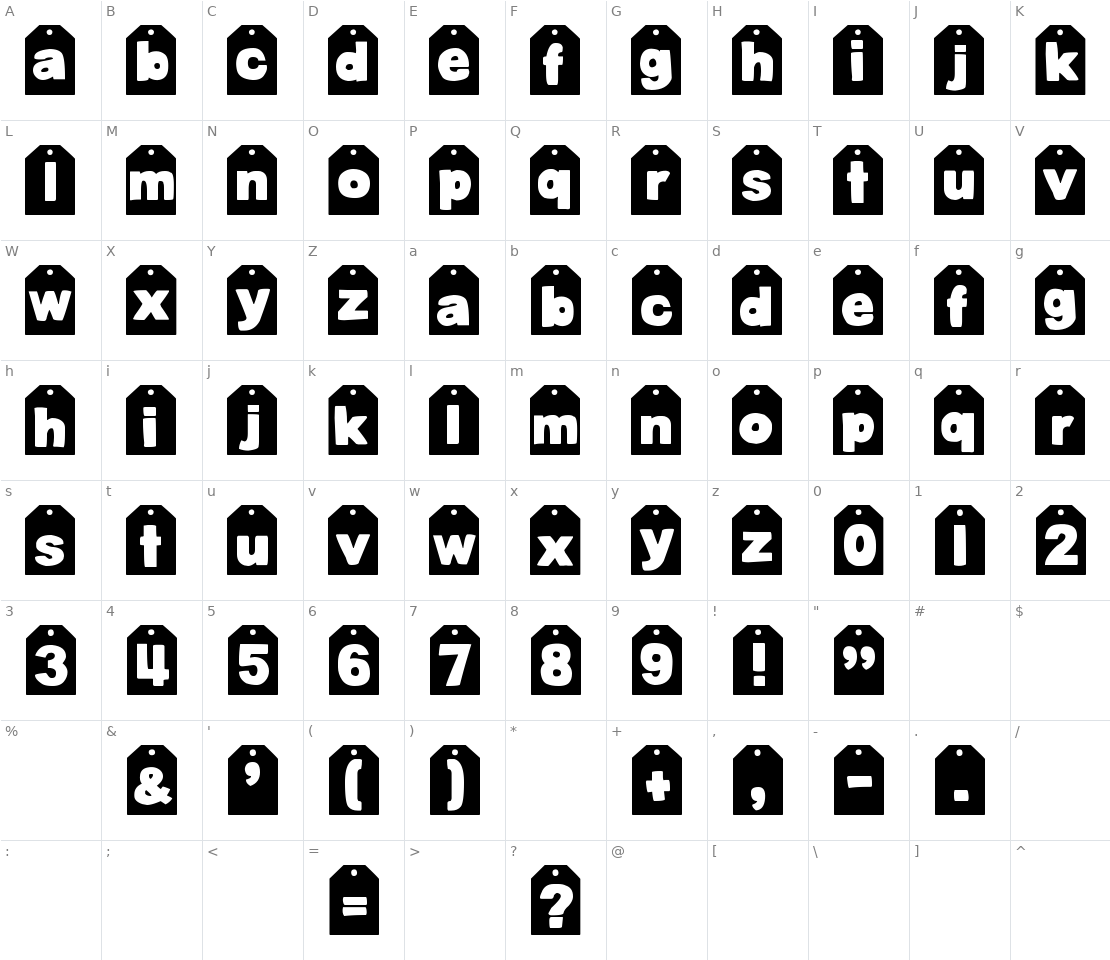
DJB Tagged
DJB Tagged is a novelty display face from DJB Fonts where each letter sits inside a bold tag or label shape, giving text the look of a string of gift tags or price labels. The silhouette-style inverse treatment makes it feel crafty and playful, best used for headlines, scrapbooking, invitations, or packaging designs where you want something fun and a little handmade-feeling. Readability drops fast at small sizes, so keep it big.